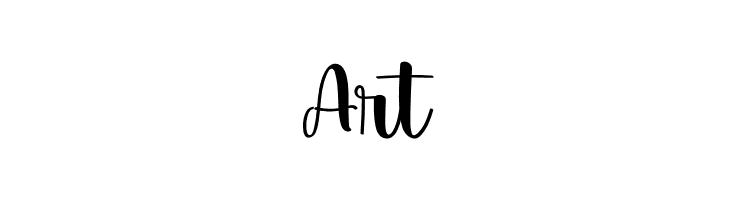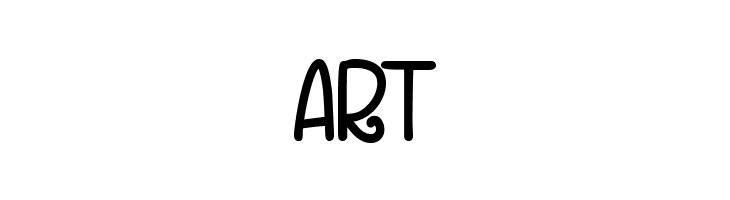
Expressive handwritten font with a casual flow.
A bold, handwritten font with a marker-like appearance, perfect for informal and dynamic designs.
Playful handwritten script font.
A playful handwritten font with rounded, casual letterforms.
Playful, bold handwritten sans-serif font.
Playful handwritten sans-serif font.
Thin, handwritten sans-serif font with a casual style.